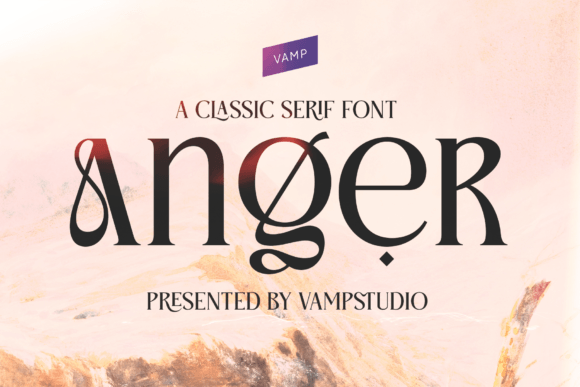
The Power of Anger Font: Elevate Your Designs with Elegance and Style
I’ll never forget the time I was working on a high-end branding project, and my client requested a font that exuded luxury and sophistication. I scoured the internet, tried out countless fonts, but nothing seemed to fit the bill. That was until I stumbled upon Anger Font. This stunning serif typeface has been a game-changer for my designs, and I’m excited to share its awesomeness with you! 😊
An Honest Review of Anger Font
- ✨ Elegant and stylish design that’s perfect for luxury brands
- ✅ Clean and simple aesthetic that adapts to various design contexts
- 💯 PUA encoded, giving you easy access to amazing glyphs and ligatures
- 🎨 Highly versatile, suitable for branding, logos, weddings, social media, ads, packaging, and more
While Anger Font is an excellent choice, there are a few minor things to keep in mind:
- ⚠️ Some users might find the font a tad too slender for certain design applications
- 🤔 Limited availability of condensed or italic versions (but the regular style is incredibly flexible)
The Backstory of Anger Font
Anger Font was designed by a team of skilled typographers who aimed to create a font that embodies elegance and sophistication. The font’s clean lines, simple aesthetic, and luxurious feel make it perfect for designers seeking to elevate their projects. While the designer’s story is shrouded in mystery, their passion for typography is evident in every detail of Anger Font.
Q: Is Anger Font suitable for body text?
A: While Anger Font is an excellent choice for headings and titles, it may not be the best fit for body text due to its slender design. However, feel free to experiment and see what works best for your specific project!